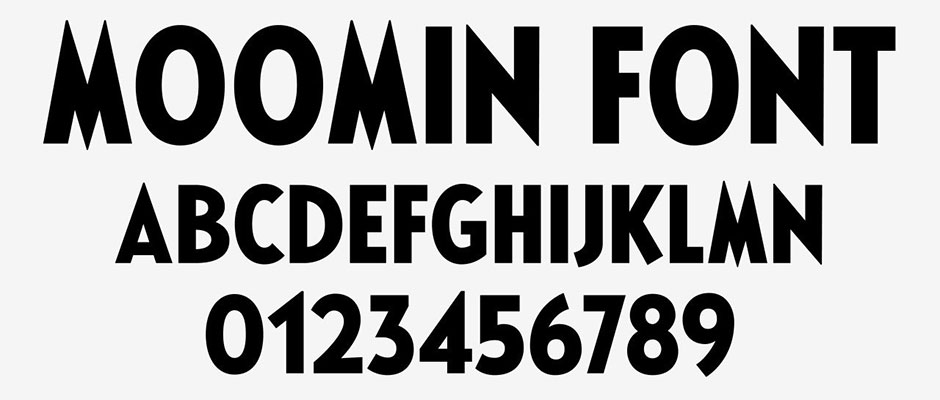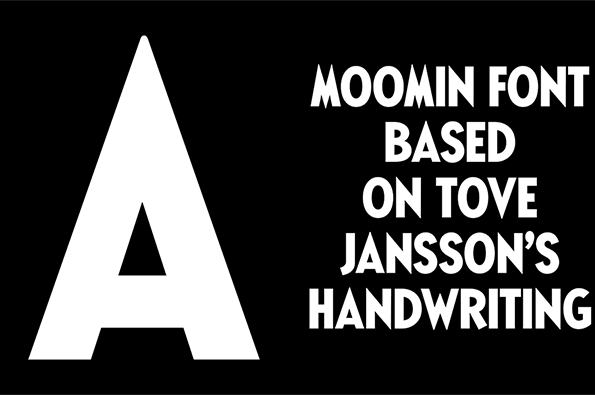
Helsinki studio designs Moomin typeface inspired by Tove Jansson
Tove Jansson was a one-woman phenomenon. Last year Finland celebrated the centenary of the much-loved Moomin creator and children’s uberauthor and illustrator, and you might remember we spoke to C-G Hagström for the Autumn issue of Printed Pages about photographing her throughout her life.
The Finnish native’s ugly little family of world-famous trolls were inspired by an argument with her brothers, after which she famously said she drew the ugliest creature she could think of on the bathroom wall. This impassioned sketch was the seed that went on to earn her the Hans Christian Andersen Award and become one of the most successful children’s writers ever.
Now Helsinki studio Bond Agency has designed a custom typeface for the Moomin brand based on original typography used in Jansson’s early comic strips. Recreating Jansson’s bold lettering, Bond Agency have given a new lease of life to a familiar type, making it feel modern whilst still keeping that much needed touch of nostalgia.